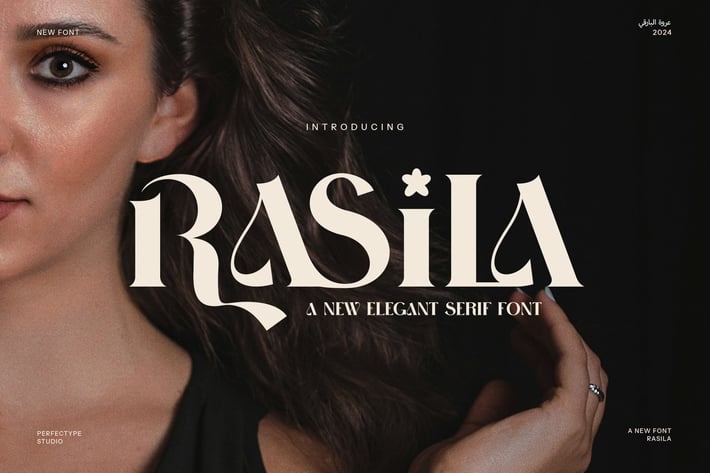
Rasila Ligature Serif Font
Rasila Elegant Serif Font is a beautifully crafted typeface that seamlessly combines modern design with classic sophistication. With its graceful serifs and exquisite letterforms, Rasila stands out for its elegance and readability, making it a perfect choice for projects that require a refined and upscale aesthetic. This font is designed to elevate any design, from high-end branding to luxury websites, editorial layouts, and more.
What truly sets Rasila apart are its stunning ligatures and alternate forms, which add an extra layer of uniqueness and character. These thoughtfully designed stylistic features provide creative flexibility, allowing designers to experiment with different letter combinations for a personalized and artistic touch. Whether you're designing a logo, product packaging, or an advertising campaign, Rasila’s versatility ensures it adapts beautifully to any creative need.
Ideal for premium branding, boutique shops, and lifestyle-focused businesses, Rasila brings an air of sophistication to any project. Its crisp, modern lines work equally well in both print and digital mediums, ensuring a consistent, high-quality look across magazines, websites, product labels, and promotional materials. The font’s refined design also makes it perfect for food and beverage branding, where elegance and style are paramount.
With its blend of modern flair and timeless charm, Rasila Elegant Serif Font is the perfect choice for designers looking to create standout, luxurious designs that leave a lasting impression. Whether for corporate identity or creative marketing, Rasila helps elevate your brand with style and sophistication.